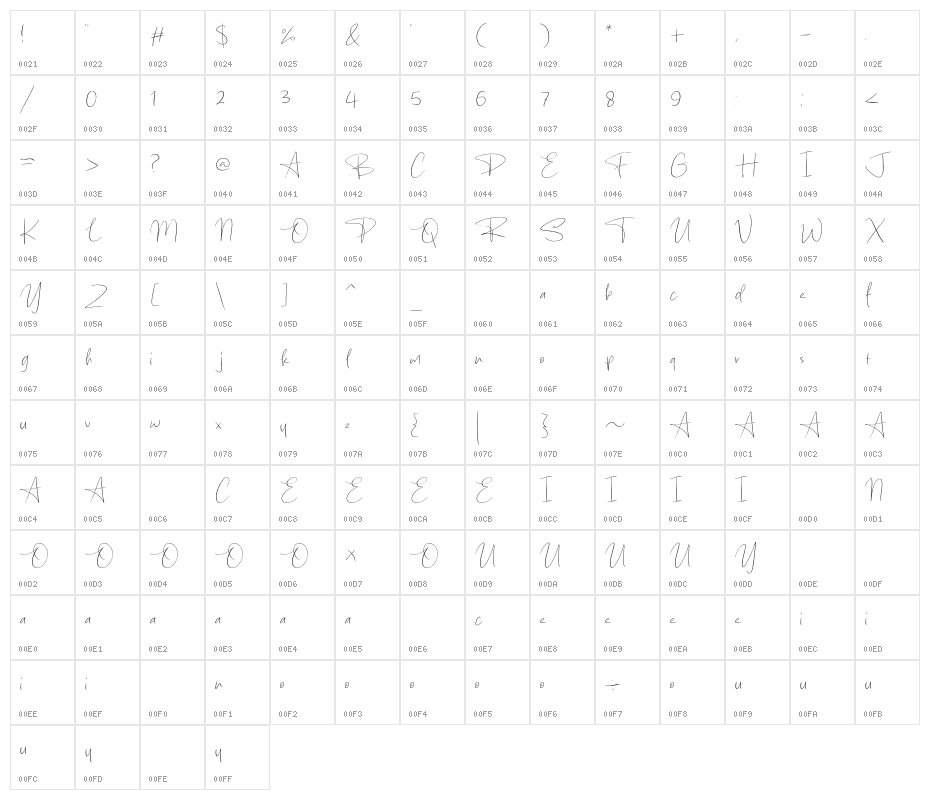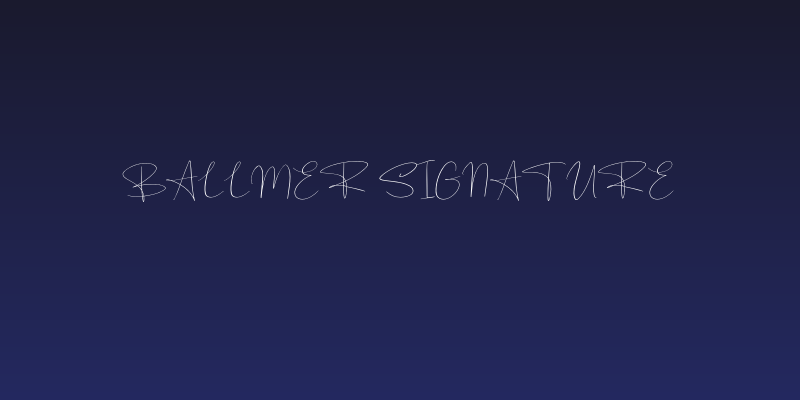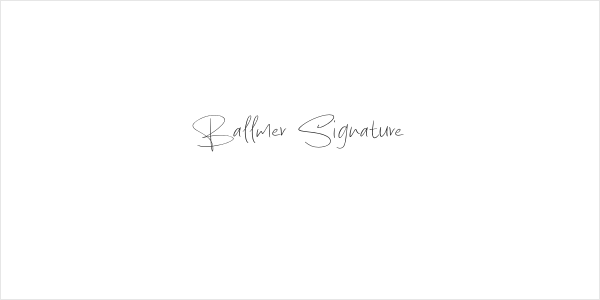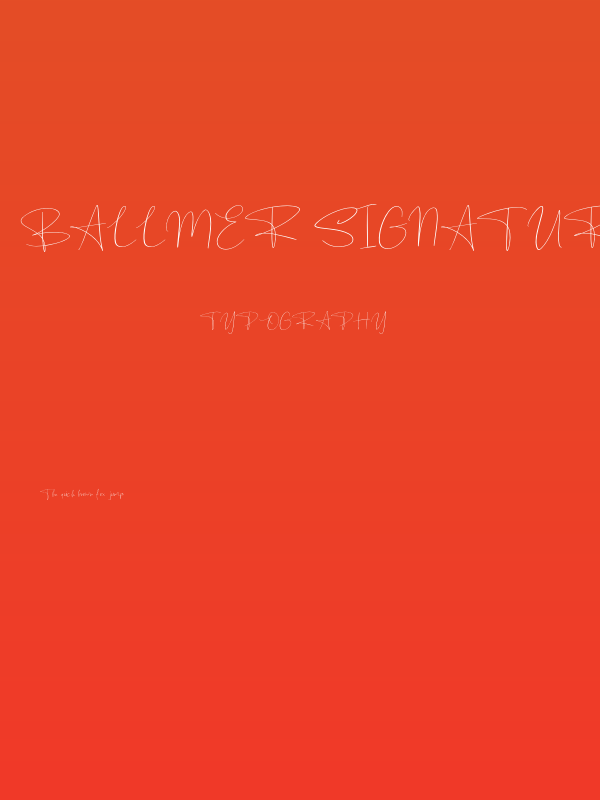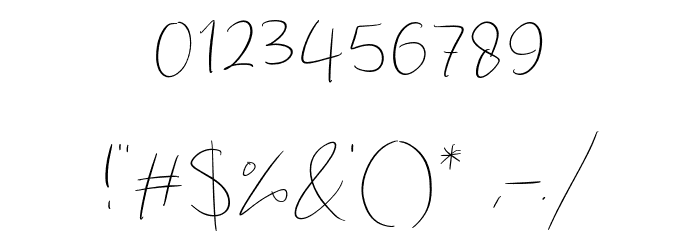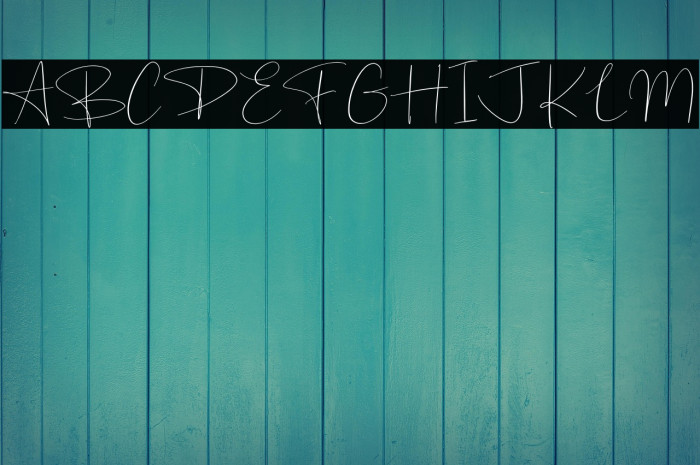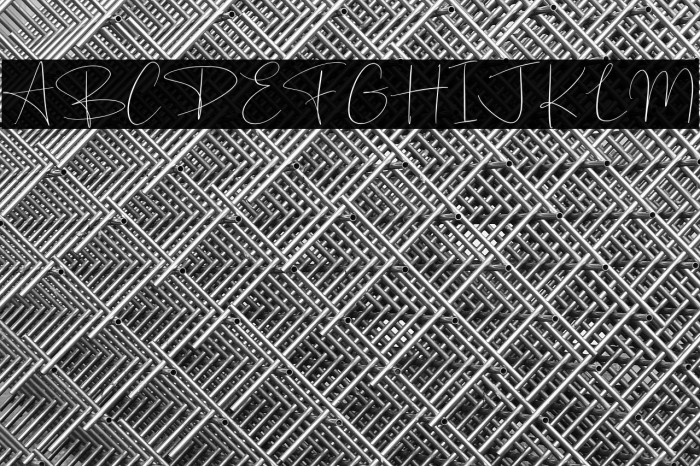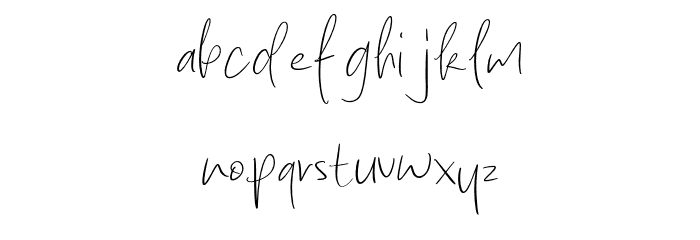
Ballmer Signature Font
Ballmer Signature Description
This font exudes a casual and personal touch, reminiscent of a handwritten signature. The characters are fluid and slightly irregular, giving it an authentic and spontaneous feel. The strokes are thin and delicate, with a consistent flow that mimics natural handwriting. The uppercase letters maintain a sense of elegance, while the lowercase letters are more relaxed and informal. Numbers and special characters follow the same handwritten style, ensuring a cohesive look across all elements. This font is perfect for projects that require a personal or intimate touch, such as invitations, personal branding, or creative projects.
| Overall Style | Casual, Personal |
| Use Case | Logos, Invitations, Personal Branding |
| Proposed Projects | Ideal for invitations, personal branding, creative projects, and any design needing a personal touch. |